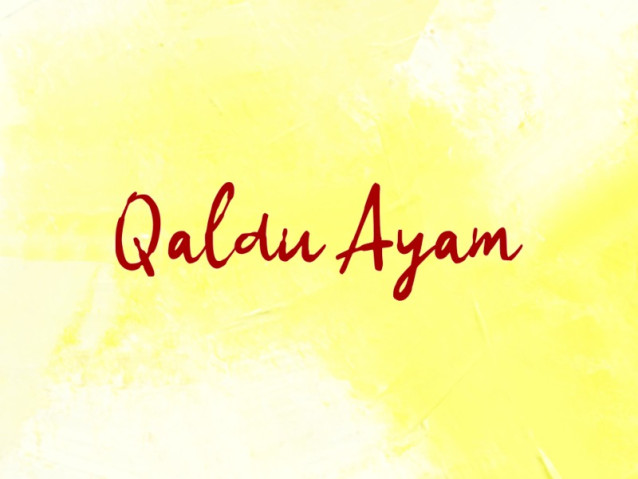
Qaldu Ayam Font
Qaldu Ayam Font is a simple and modern display font suitable for quotes, logos, headings, titles, and many more. Use it on any of your creative projects, and your designs will become outstanding!